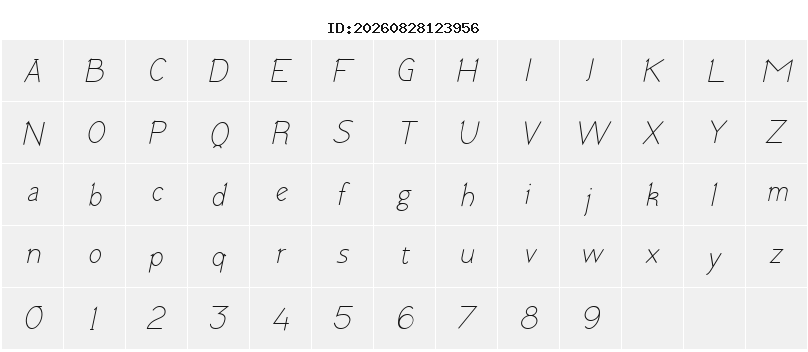
Tomsk Preview
• Font Name: Tomsk
• Font ID: Tomsk Italic:Version 1.00
• Full Font Name: Tomsk Italic
• Version: Version 1.00 January 22, 2013, initial release
• PostScript Name: TomskItalic
• Character Count: 332
• Copyright: Tomsk Typeface © Type Sailor - David Espinosa. 2013. All Rights Reserved
• Designer: Type Sailor - David Espinosa
About Tomsk.ttf
Tomsk.ttf is a modern, elegant sans-serif font designed for ultimate readability and visual harmony. Perfect for branding, headlines, web design, and print materials.